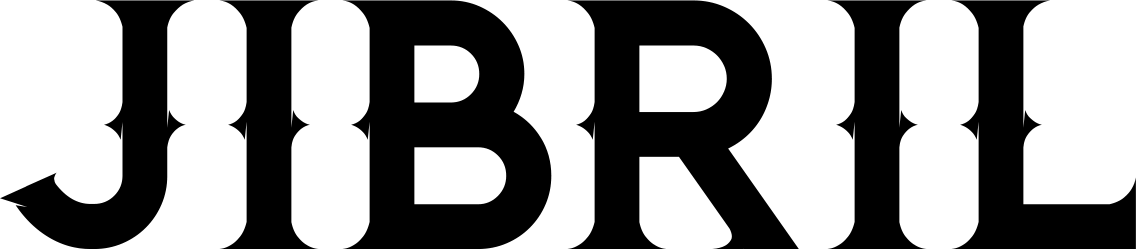
Jibril Font
Jibril, this great typeface consisting of 2 font files falls under the old-school font category. As you can see, it comes with bold, ornate, retro characters and supports uppercase letters, numerals, and general punctuation. You can make terrific posters, book covers, signs, packaging, and games using Jibril! What are you waiting for? Give this vintage T-shirt font a try!